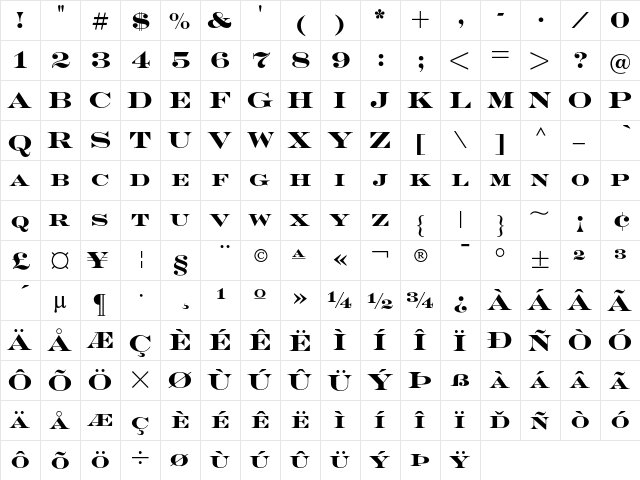
EngraversRomanV Bold
Design Context for EngraversRomanV Typeface
EngraversRomanV is a composed and adaptable typeface that performs quietly and consistently across a wide range of design contexts. Its bold stroke weight gives it real presence on the page.